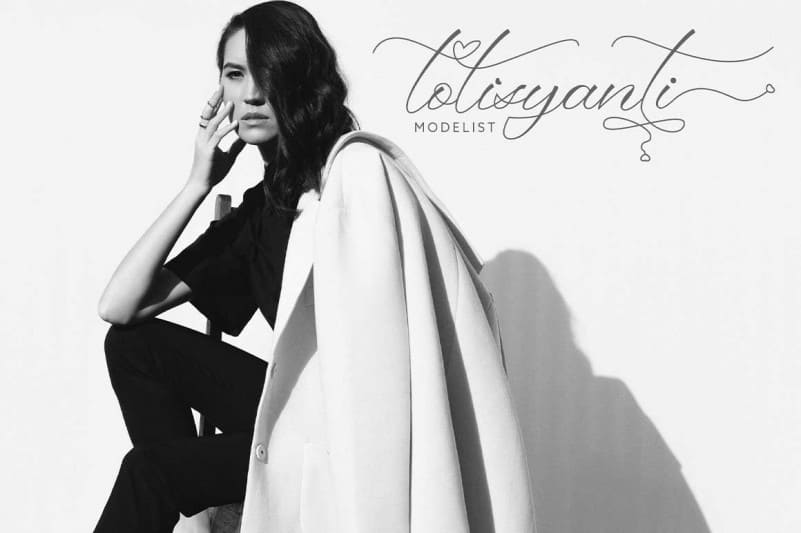
Ringlovely Calligraphy Font
Ringlovely Calligraphy Font is a flexible font which makes it perfect to match with other typefaces to create a beautiful work like illustration, logo, wedding card, book cover, fashion design and many more. It is PUA encoded which means you can access all of the glyphs and swashes with ease! It features a varying baseline, smooth lines, gorgeous glyphs and stunning alternates. It maintains its classy calligraphic influences while feeling contemporary and fresh. Fall in love with this font and bring your projects to the highest levels!